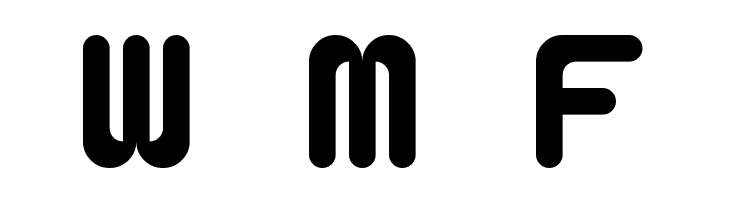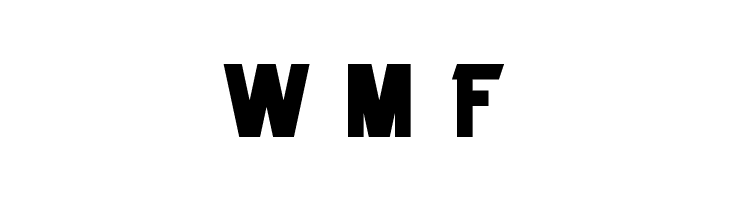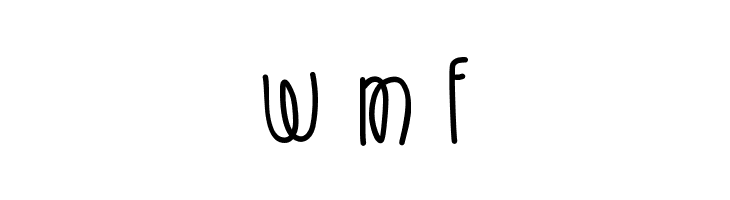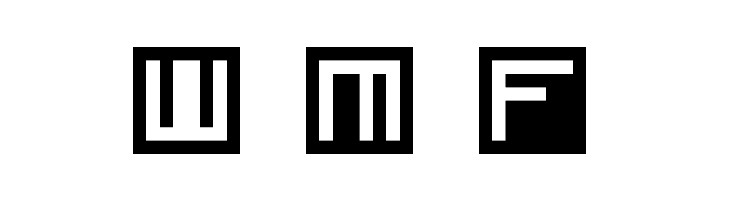
A modern, geometric font with rounded edges and a clean, minimalistic style.
A dynamic and elegant script font with flowing, cursive letterforms.
A bold, monospaced font with a futuristic and geometric design.
A bold, italicized font with angular, modern design.
A bold, geometric font with an industrial, robust aesthetic.
A playful, handwritten font with quirky, rounded characters.